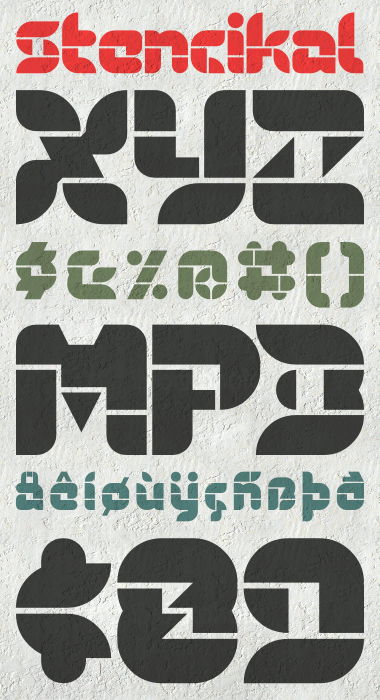
• Clone of FS Mini which started as an alternative with UC & filter set at 2 to gain half brick positions. I changed the filter to 1.78 after not being satisfied with it & got amazed by the possibilities. Even when I came to some brick limitations I found myself redesigning some glyphs to abuse them of these new found possibilities & maintain a certain harmony within the whole set.
All this filter stuff going on ... I'll have to get my head aroun it.
Not sure about glyph abuse though ... sounds dodgy to me :)
Great work. Lovin the sample, but I got to admit, I'm a bit gutted. I don't want to take anything away from you and please don't take this the wrong way, but I've been working on a very similar font to this, which I started on August 9th. I've been doing so many variations (the possibilities seemed endless) that I've yet to make it public. I also used 1.78 filter.
Here's a small sample.
I'll delay releasing mine.
Another variation.
@p2pnut
I knew I had to choose my words more carefully to explain myself better. I meant I found myself using the brick combo over & over again... poor glyphs.
@djnippa
A philosopher once told me: Ideas are like worn coins: they come around from everywhere, passed from hand to hand & sometimes you spend them, sometimes you lend them.
I do not take this the wrong way at all. Quite the opposite, I think it shows that we have influences & perspectives alike: we might create something that might like or inspire the other on our own & be creating similar things as a result of this. We are following our own trend unconsciously, so to speak.
I like your samples & dig how you solved some situations in a different matter. That's also very enlightening when you been pushing bricks the same way.
Looking forward to see your FontStruction released.
Great result Cayo. I really like the staggered quality to the horizontal stencil lines. It gives the words a fun rhythm.
The whole category of stencil typefaces seems to be evolving nicely. I used to associate stencil typefaces only with things like the military, construction, and DIY punk rock but many contemporary stencils (like this one) are, dare I say...cute.
I agree. We can dare to say it ended up pretty cute like the lot of other new stencils around, even some not really labeled as stencil, but stencil-able like your Sessions or Playtime.
As for the lines I thought playing with horizontal cuts would be quite more interesting than the typical vertical ones. The option for which one went up or down was chosen with the a and e; that line actually helped their terminals so I use that stagger pattern all around to give it some flow. I only doubted it with the s since the traditional flow of this glyph would be counter-wise, but it would have lost the roundness it preserves this way, so there I had 2 good reasons to keep up with the choice of stagger for it.
very modern and fresh. your sample shows how nice it is and most of all fun :)
You're right, FK: The Fun Factor drove me around as I discovered this one's possibilities. Extending it is going to be delightful.